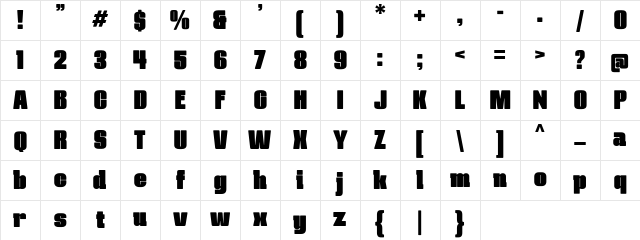
Mailboy - Font Demo Bold
Foundry: Graptail Type Studio
Designer: Teuku Deky Firnanda
Design Context for Mailboy - Font Demo
Mailboy - Font Demo is a composed and adaptable typeface that performs quietly and consistently across a wide range of design contexts. Its bold stroke weight gives it real presence on the page.